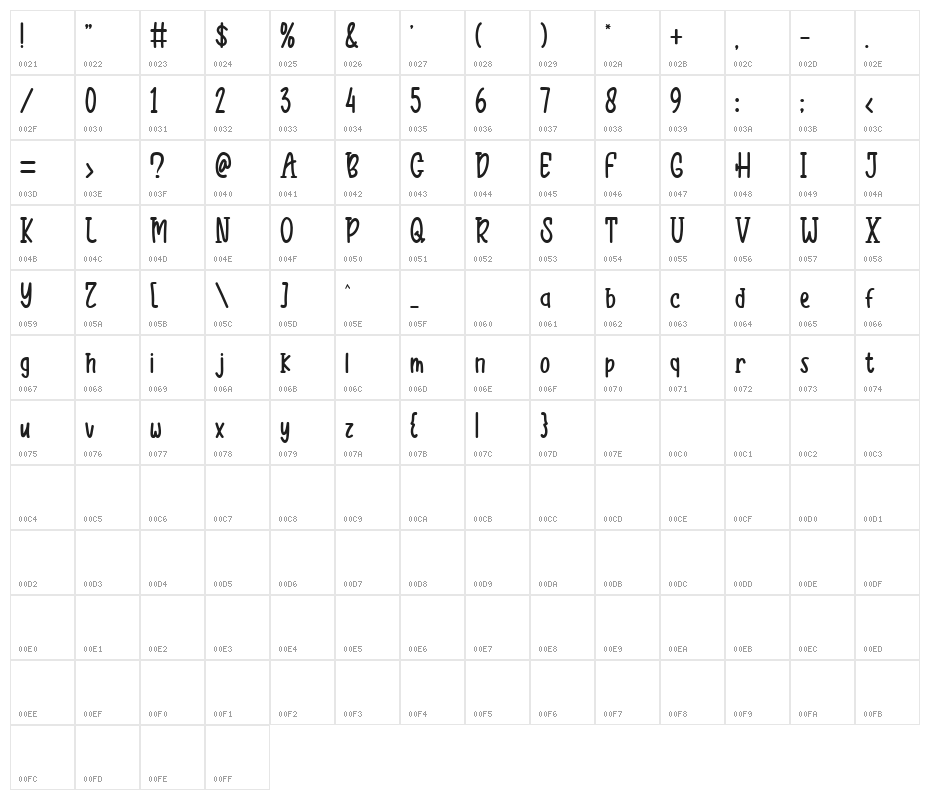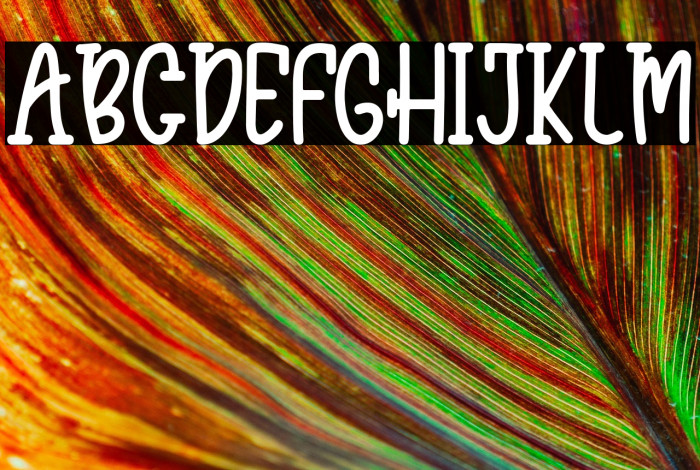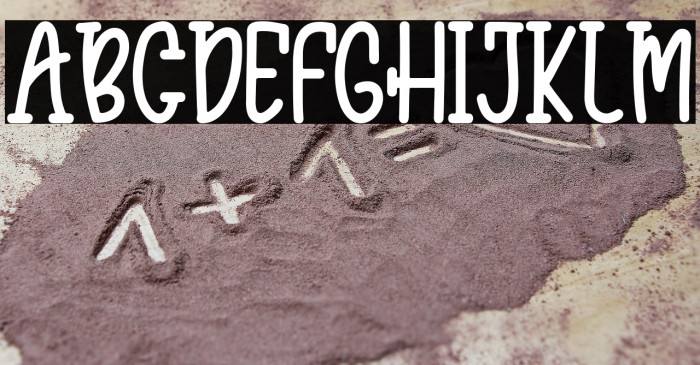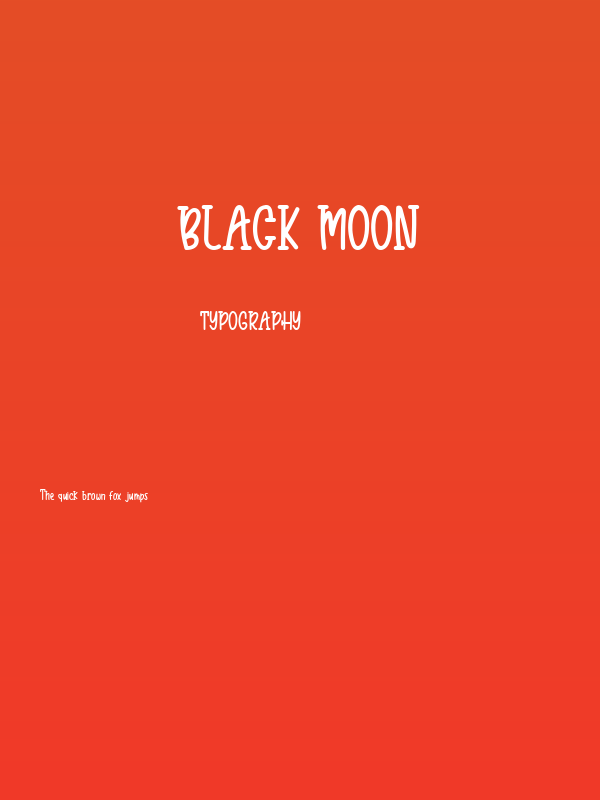
Black Moon Font
Black Moon Description
This font features a playful and whimsical style, characterized by its rounded and slightly irregular letterforms. The uppercase letters are bold and prominent, while the lowercase letters maintain a consistent flow with a slightly narrower width. The numbers and special characters follow the same playful aesthetic, making the font suitable for creative and informal designs. The overall appearance is friendly and approachable, with a hand-drawn feel that adds a personal touch to any project.
| Proposed Projects | Ideal for children's books, greeting cards, playful branding, and social media graphics. |